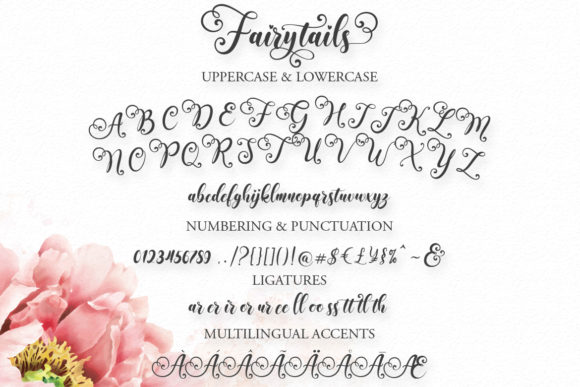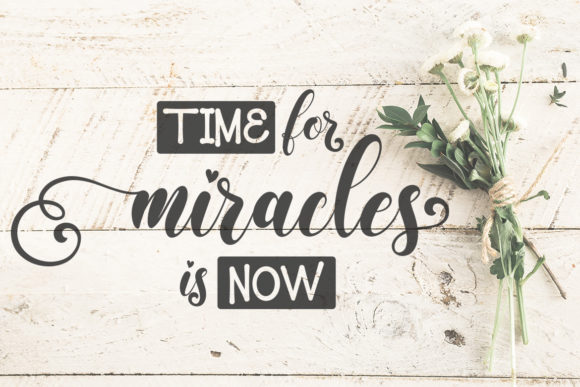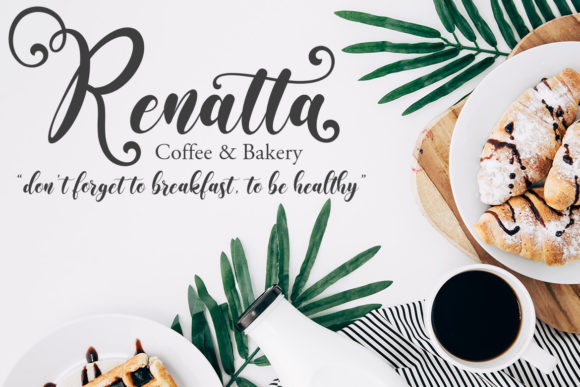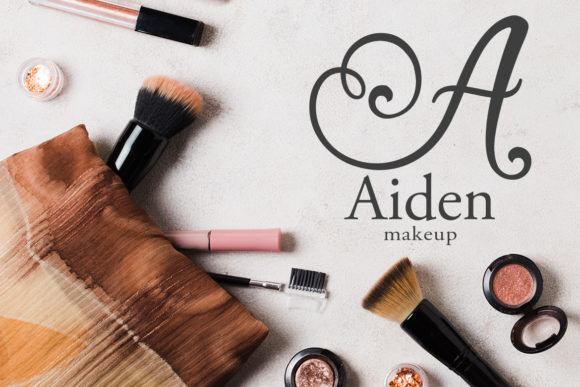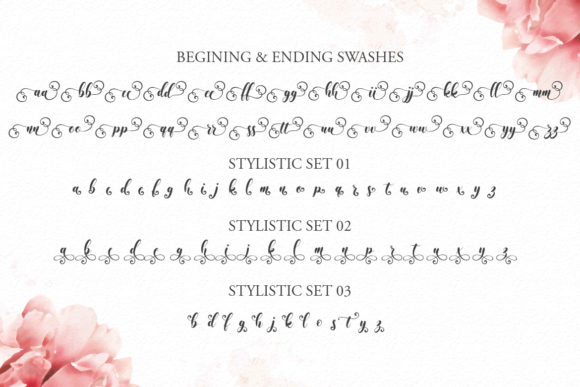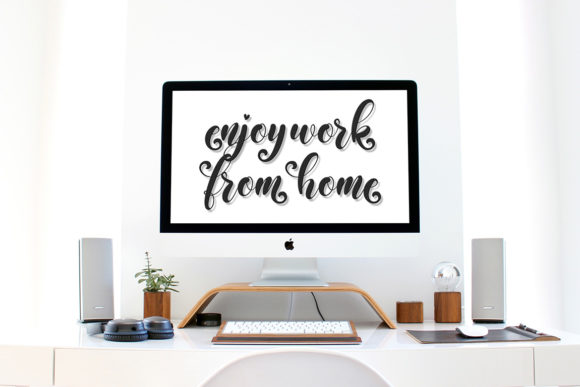
Unleashing the Magic of Fairytails Font
Have you ever been scrolling through Instagram, and a beautiful, handwritten caption catches your eye? You can’t help but wonder what font they used, and how you can replicate that same magic in your own designs. For designers and creatives, finding the perfect font can be a game-changer – it’s what sets your work apart and makes it truly unforgettable.
Enter Fairytails Font, an elegant and modern handwritten font that exudes luxury and sophistication. Whether you’re looking to add a touch of whimsy to your social media posts or create stunning calligraphy scripts for DIY projects, Fairytails Font is the perfect tool for turning your creative ideas into works of art. Its versatility and high-end feel make it a valuable asset for designers looking to elevate their brand and style.
Fairytails Font Key Features
- Font Family: Fairytails Font is a modern, elegant script font designed to evoke a sense of whimsy and wonder. It is available in 6 styles: Regular, Italic, Bold, Bold Italic, Extra Bold, and Extra Bold Italic.
- Unique Characteristics: Fairytails Font features a unique blend of calligraphic and handwritten elements, with subtle flourishes and connecting strokes that add to its charm and personality.
Designer Review: Fairytails Font
Overall, I think the Fairytails Font is a beautiful and whimsical font. ✨ It has a lovely, hand-drawn feel to it that makes it perfect for adding a touch of magic to your designs. ✨ The font is highly customizable, with a range of weights and styles to choose from, making it versatile for use in various design projects.
The font’s best features include:
- Unique, hand-drawn style that adds a touch of personality to designs
- Highly customizable with multiple weights and styles
- Perfect for use in children’s books, fairy tale-inspired designs, and other whimsical projects
However, I do have a few concerns:
- ⚠️ The font may be too ornate for some designs, making it difficult to read at small sizes
- ⚠️ The font’s irregular letterforms may not be suitable for use in formal or professional designs
- ⚠️ The font’s customizability can also be overwhelming, making it difficult to choose the perfect style for your project
Overall, I think the Fairytails Font is a great choice for designers looking to add a touch of magic to their projects. While it may have some limitations, its unique style and versatility make it a valuable addition to any design toolkit.
1. Children’s book illustrations
2. Wedding invitations or stationery
3. Branding and marketing materials for businesses with a playful or whimsical tone
Alternatives to Fairytails Font for Designers
Great Vibes is a modern, elegant script font that is ideal for creating a whimsical and romantic atmosphere. It is suitable for use in wedding invitations, greeting cards, and other creative projects. Great Vibes has a more fluid and flowing style compared to Fairytails, making it perfect for designers who want to add a touch of sophistication to their designs.